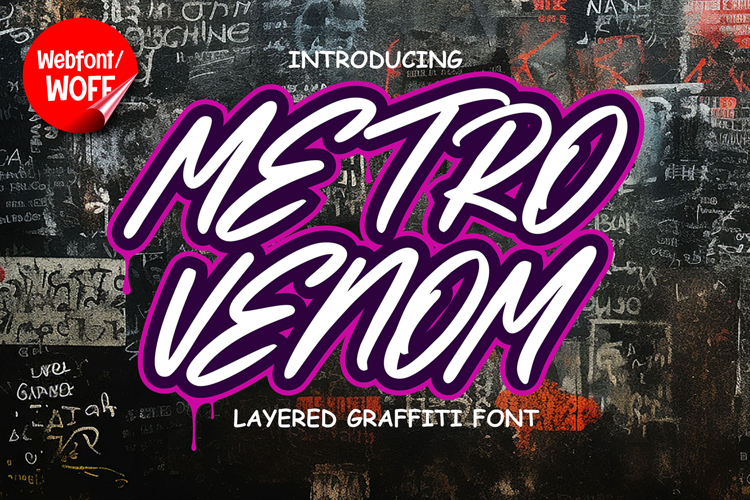
Metro Venom | Monoline Graffiti Webfont for Clean Urban
Metro Venom is a monoline graffiti webfont designed to deliver a clean yet expressive urban style for modern website design. Inspired by street tagging and minimalist line work, this font features smooth single-line strokes that create a balanced and contemporary look. It is an excellent choice for projects that require a graffiti-inspired identity with a refined and versatile appearance.
Metro Venom includes a complete set of uppercase characters designed with a monoline structure. The consistent stroke weight provides a clean and cohesive appearance, while the graffiti influence adds personality and movement. These letterforms are ideal for headlines, logo-style text, banners, and featured content where a modern graffiti style is needed.
In addition to letters, the font includes numbers and punctuation, allowing flexible usage across various website elements. It works well for promotional text, navigation highlights, interface accents, and short messages. Each character maintains a consistent monoline style, ensuring a unified and professional visual identity throughout the layout.
With multilingual support, Metro Venom includes a wide range of accented characters, making it suitable for international websites and global audiences. This allows content to be displayed clearly across different languages while preserving the clean graffiti aesthetic.
The monoline graffiti style of Metro Venom makes it especially suitable for urban-themed websites, streetwear brands, music platforms, creative portfolios, and lifestyle blogs. Its clean line design offers a modern interpretation of graffiti, making it adaptable for contemporary digital projects. The smooth strokes add a sense of movement and character without overwhelming the layout.
Despite its simple and expressive design, Metro Venom is built with readability in mind. The spacing and stroke consistency are carefully balanced to ensure clarity, particularly in display sizes and short text applications. This makes it effective for both bold visual elements and supporting interface content.
Metro Venom is a webfont that combines graffiti inspiration with clean monoline precision and modern digital performance. Its smooth lines, consistent structure, and urban character create a distinctive typographic presence that enhances website design. For projects that require a stylish graffiti look with clarity and flexibility, Metro Venom delivers a balanced and impactful solution.